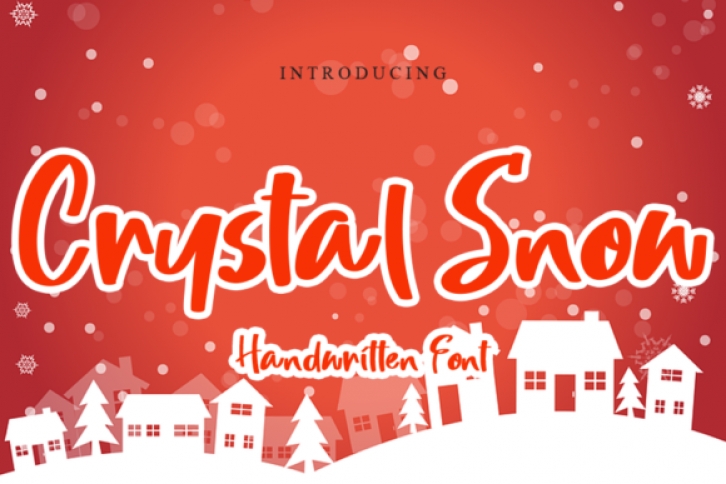
Crystal Snow is a cute and quirky handwritten font. It embodies playfulness and authenticity and is the perfect choice for any children activity or school project.